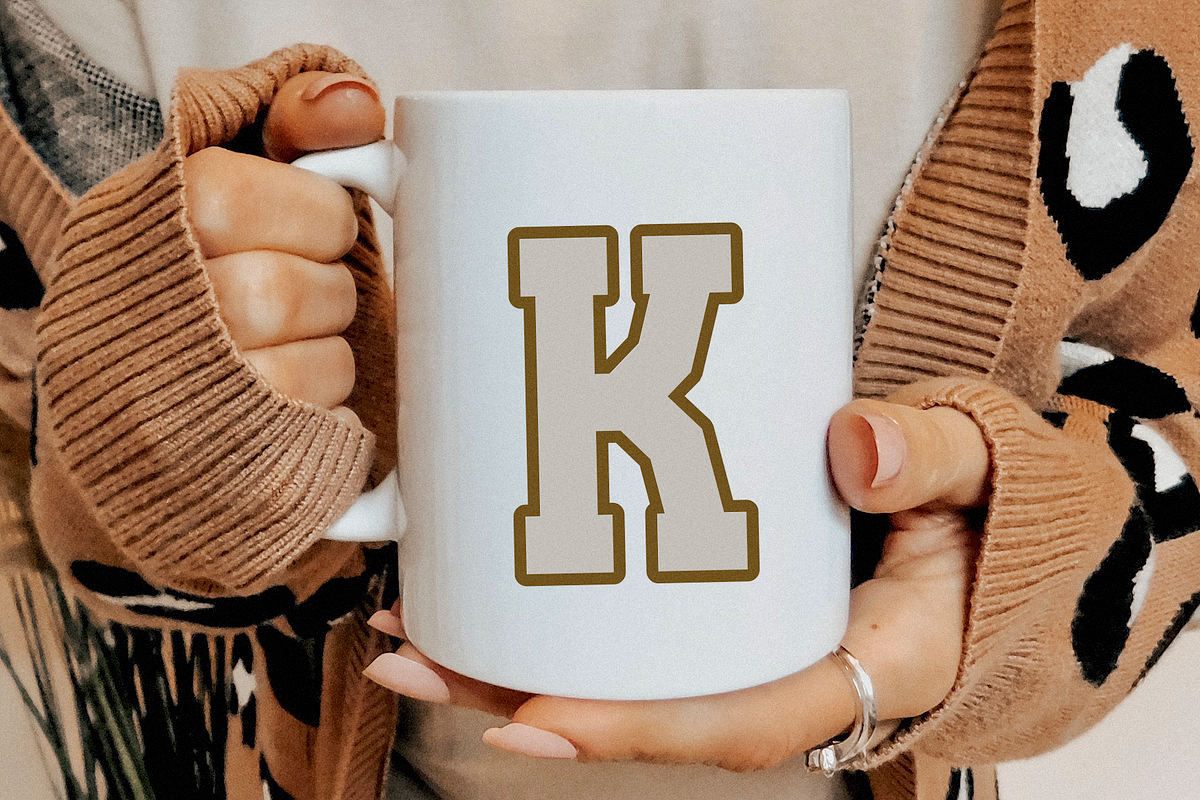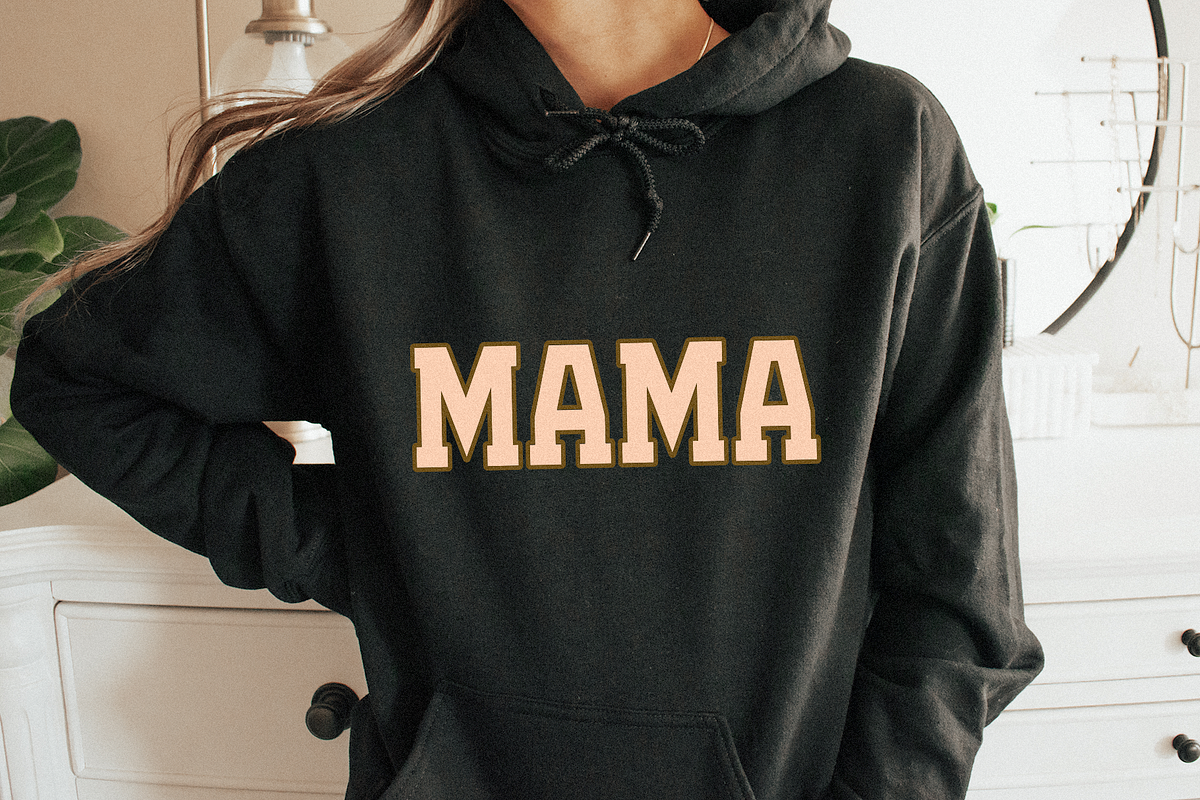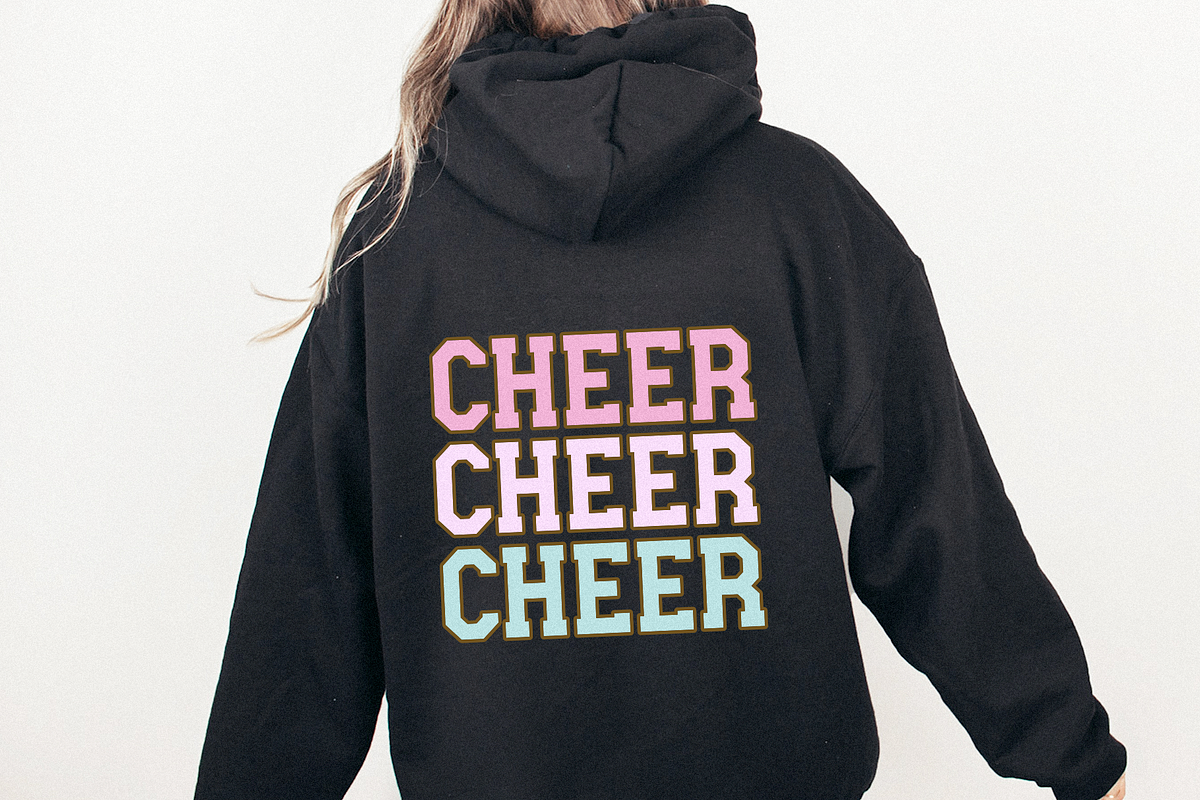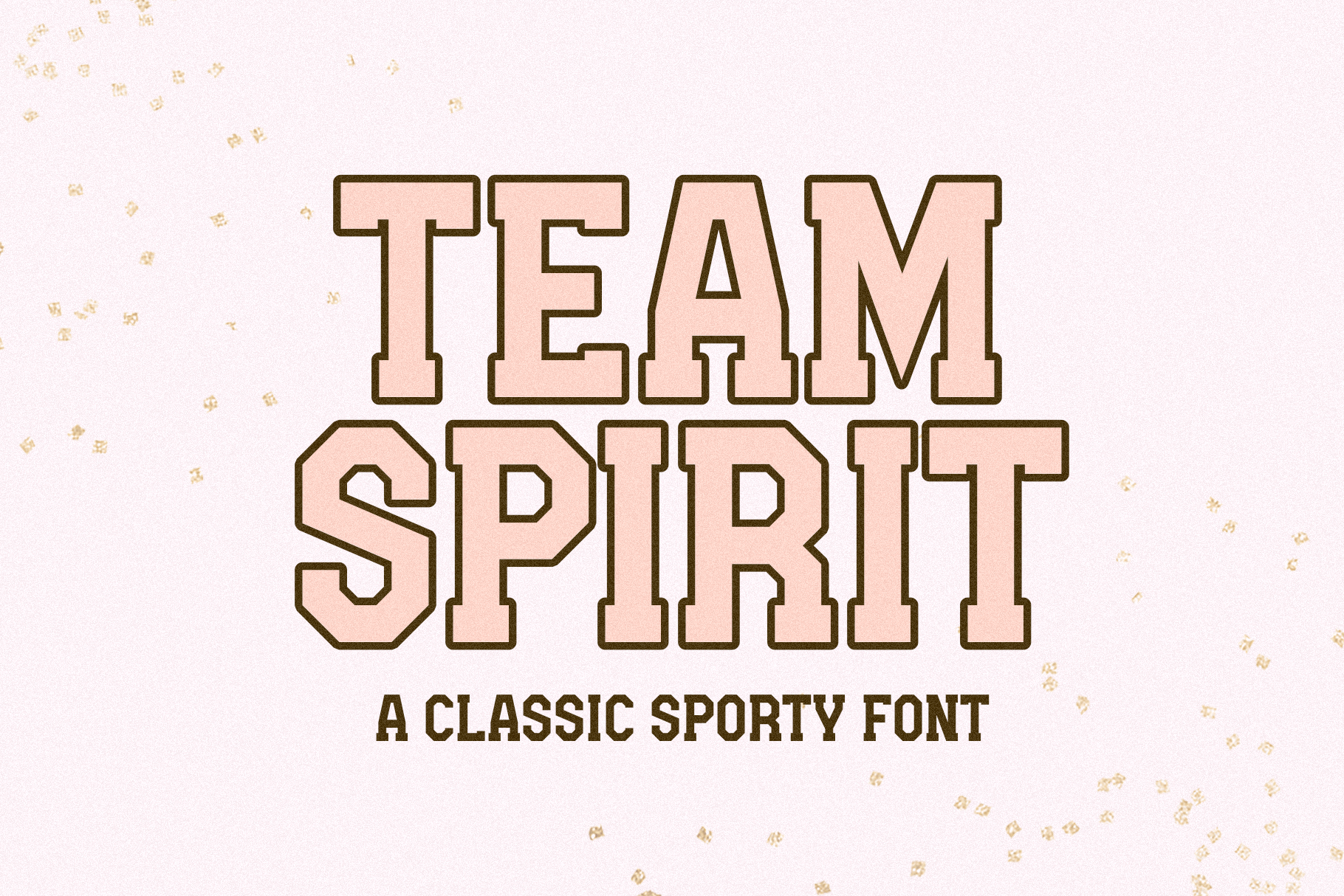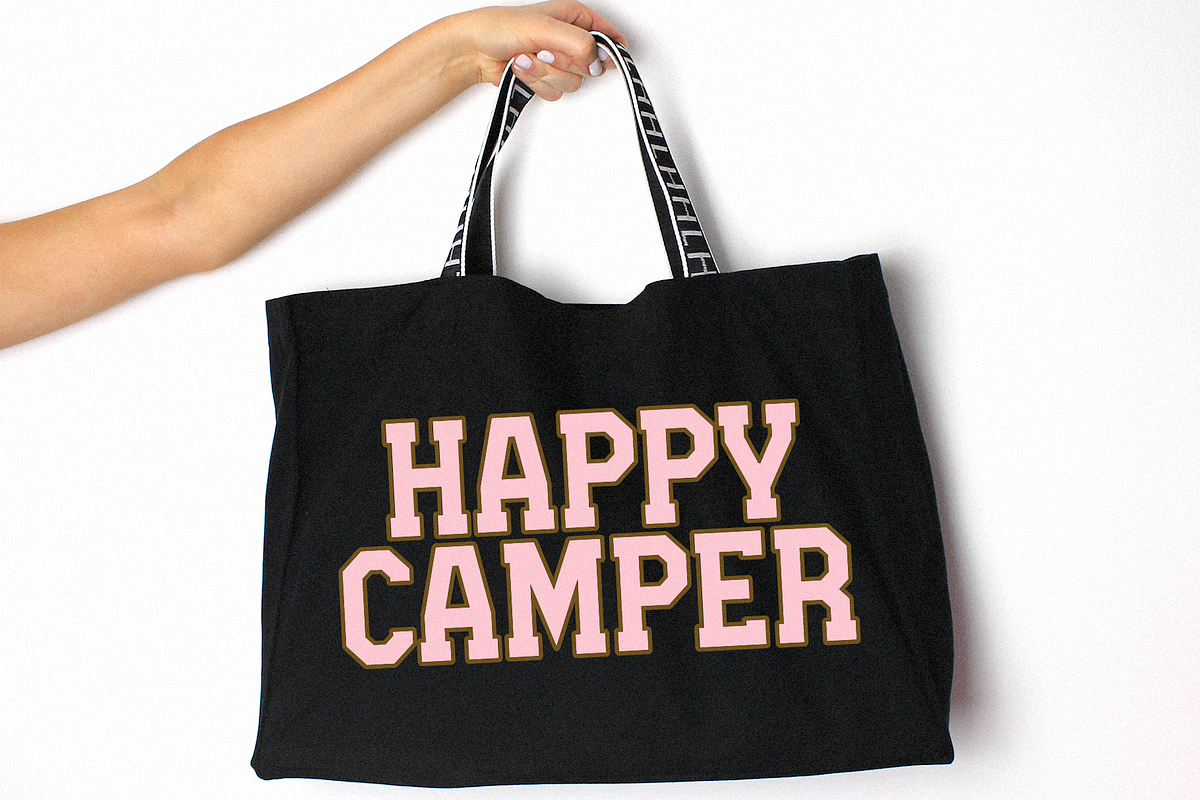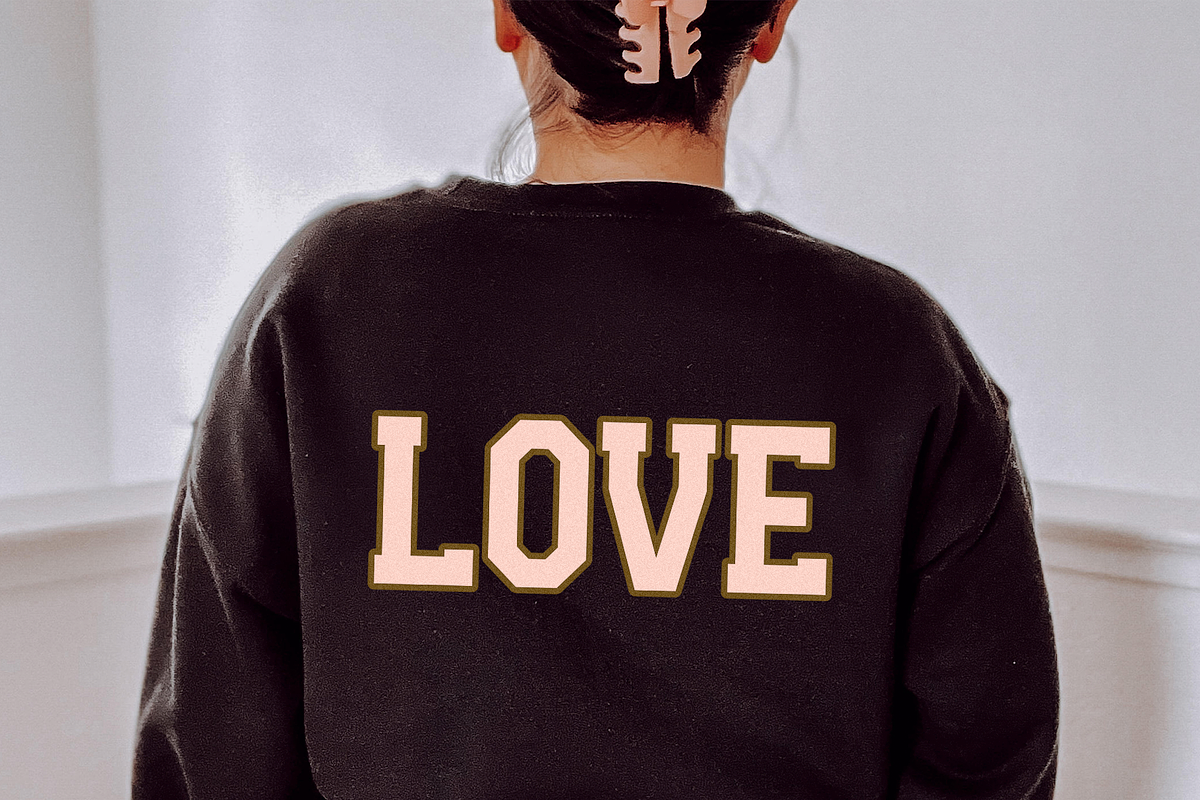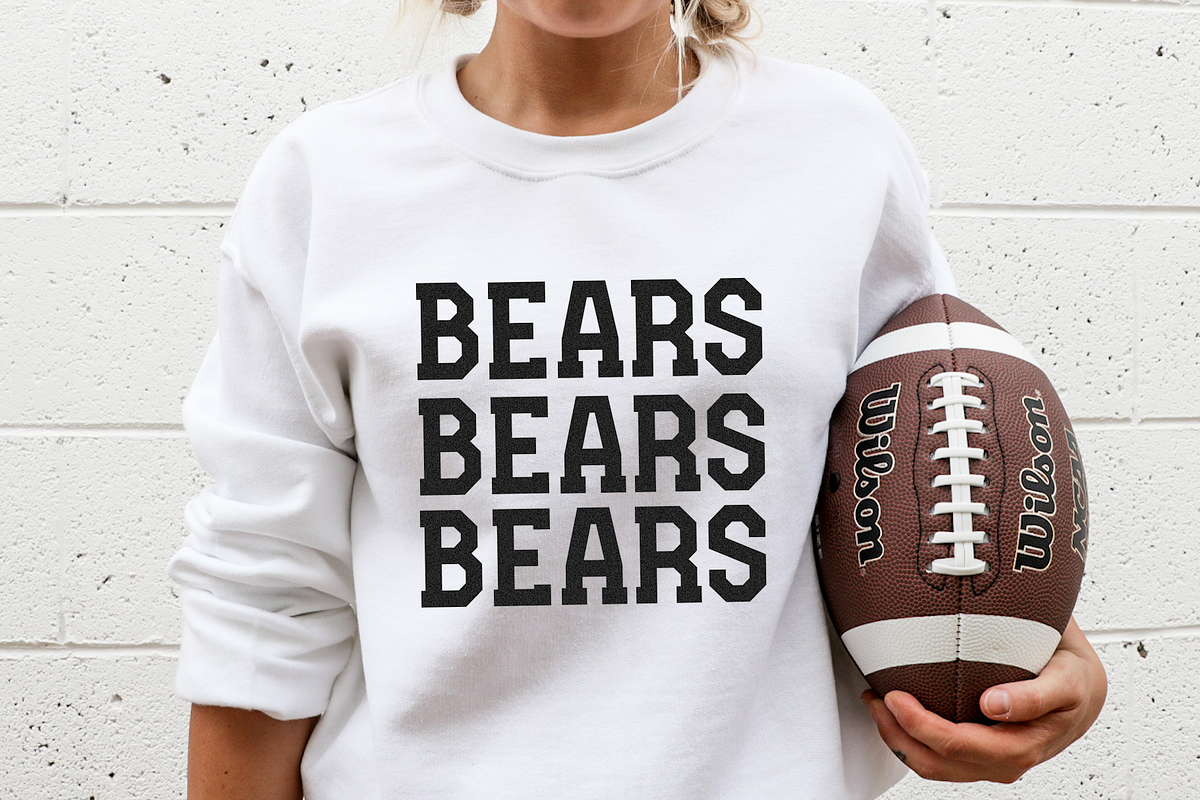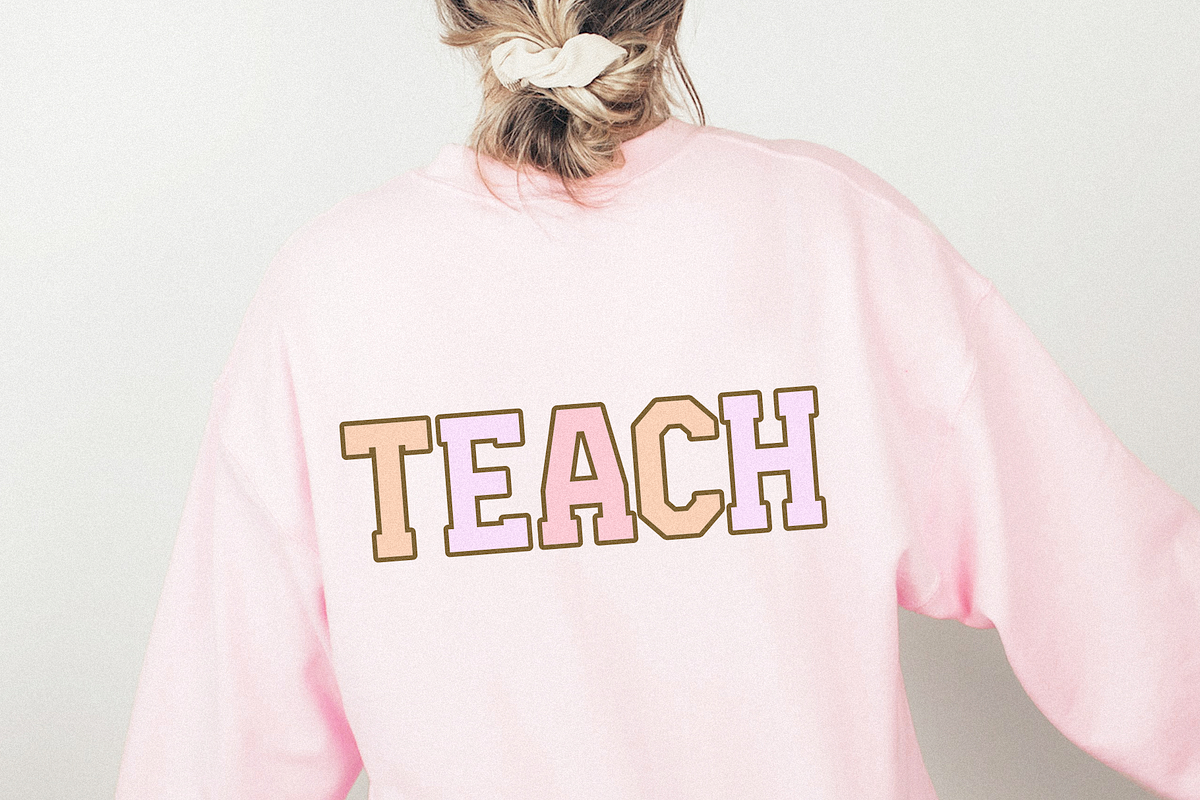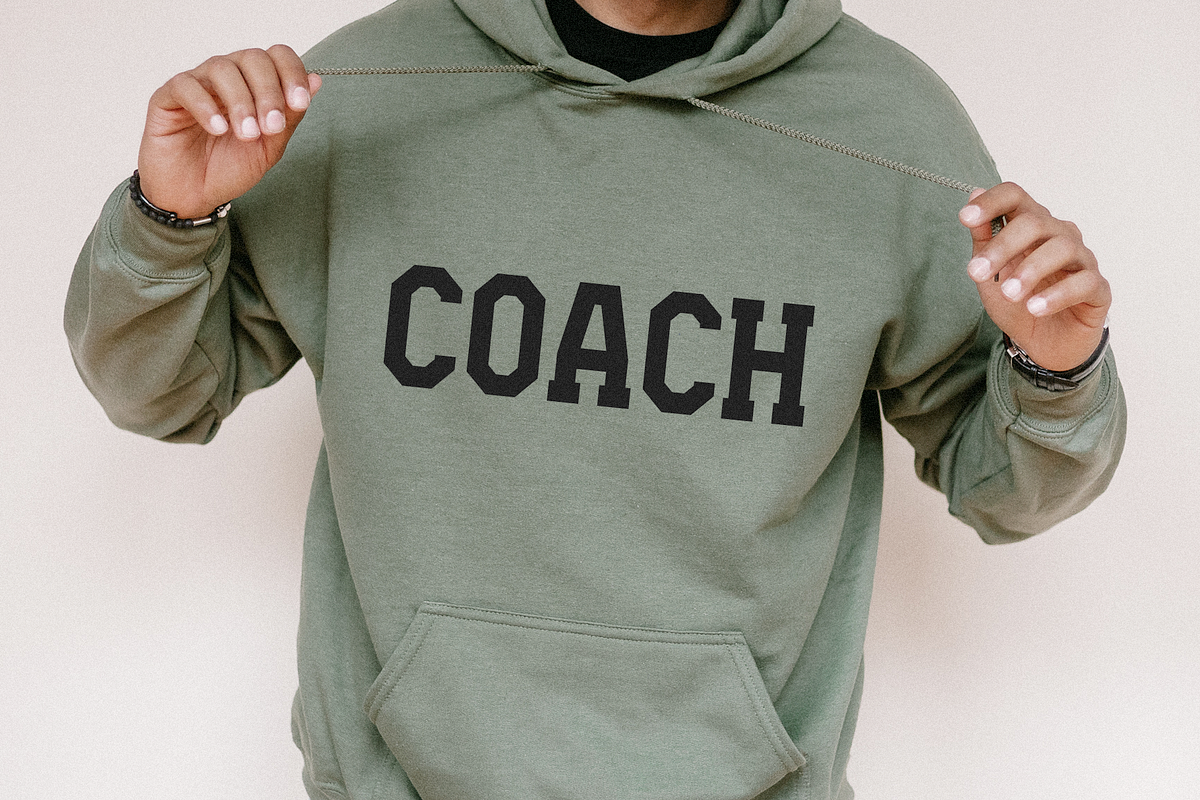
Team Spirit | Retro Sports Font
Team Spirit is a blocky font perfect for your sports and retro designs!
Use this font for sports sweatshirts, mugs, vinyl, stickers, craft projects, logos and more!